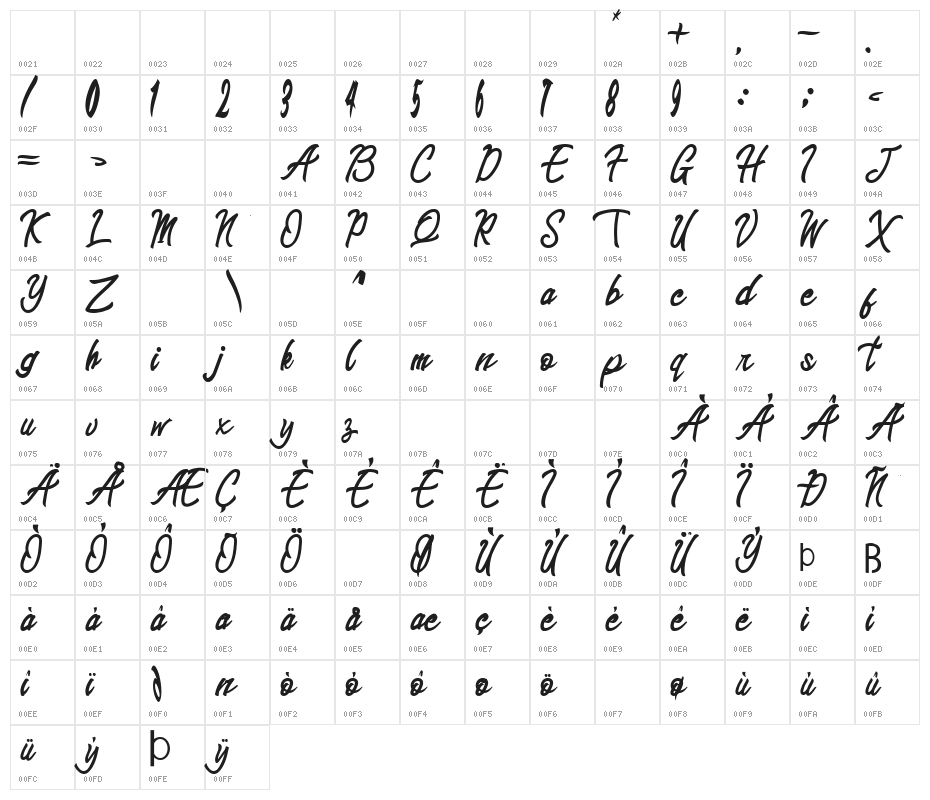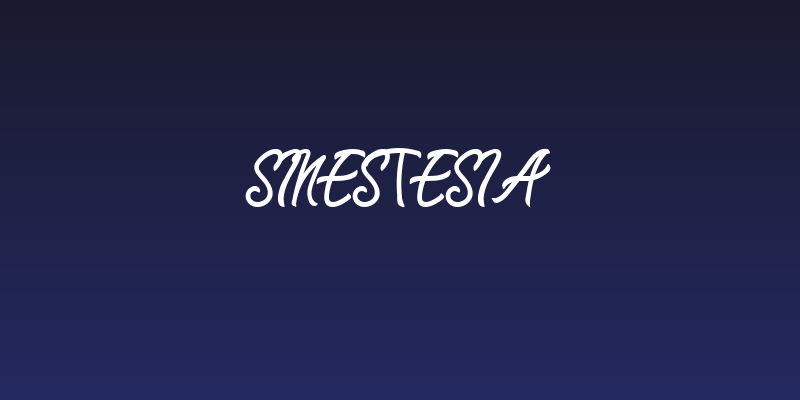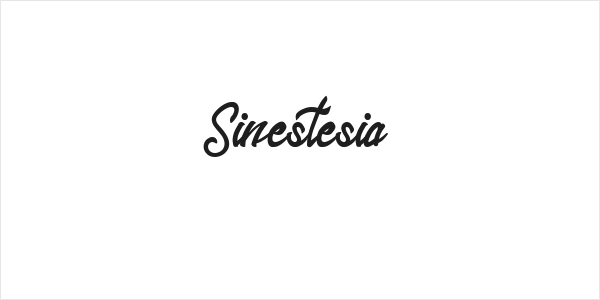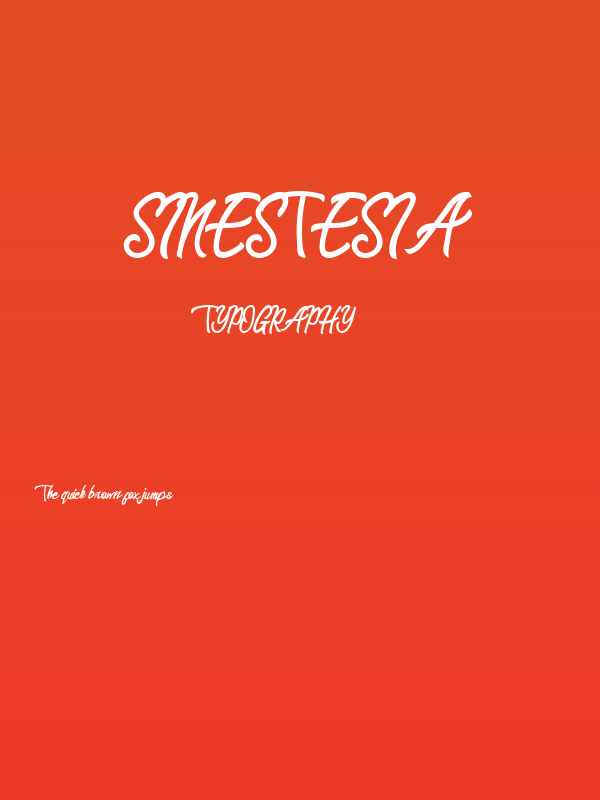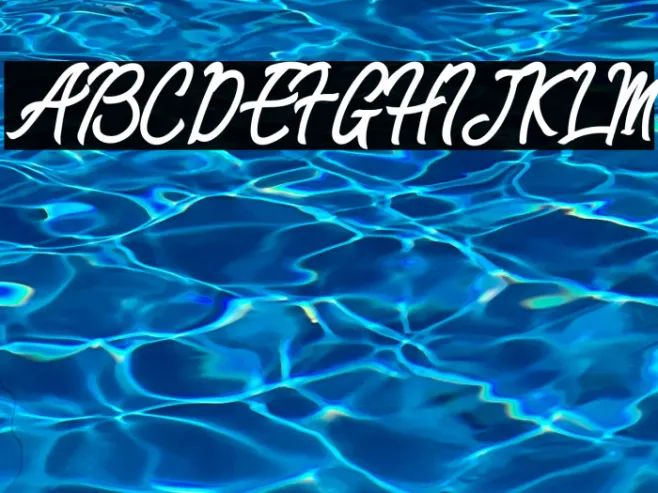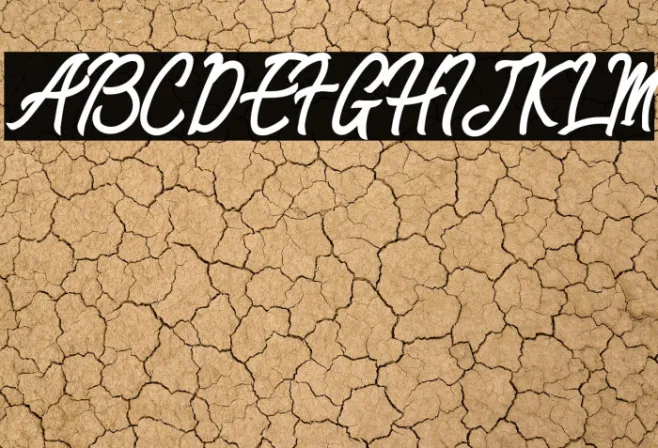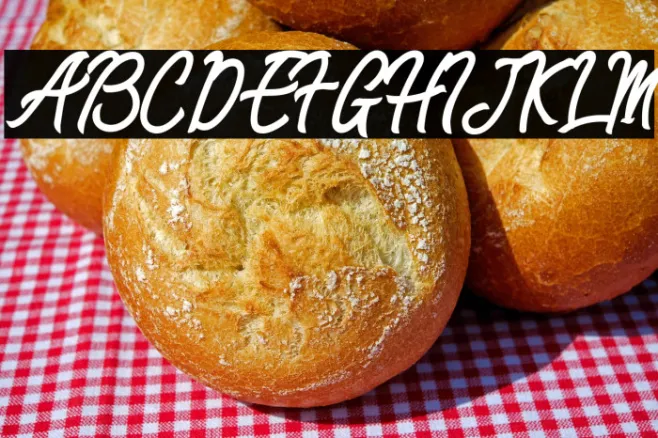
Sinestesia Font
Sinestesia Description
This font features a dynamic and fluid script style, characterized by its bold and expressive strokes. The uppercase letters exhibit a sense of movement and flair, with elegant curves and loops that create a sense of rhythm. The lowercase letters maintain this fluidity, offering a cohesive and harmonious look. The numerals are equally stylized, with a playful yet sophisticated appearance. Special characters are integrated seamlessly, adding to the font's versatility. Overall, this font exudes a sense of creativity and artistic expression, making it suitable for projects that require a personal and unique touch.